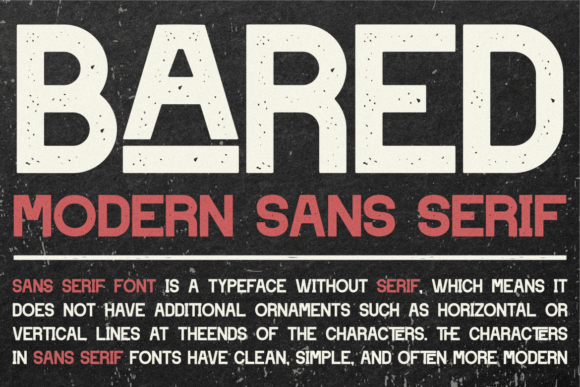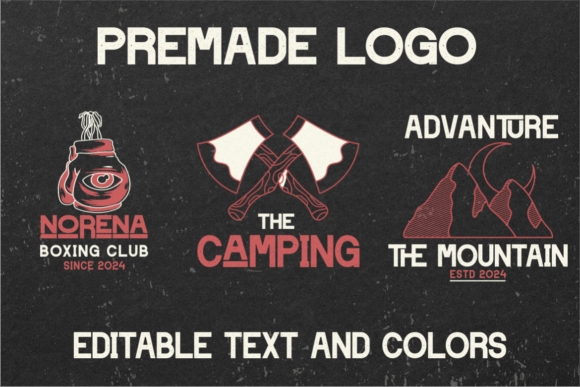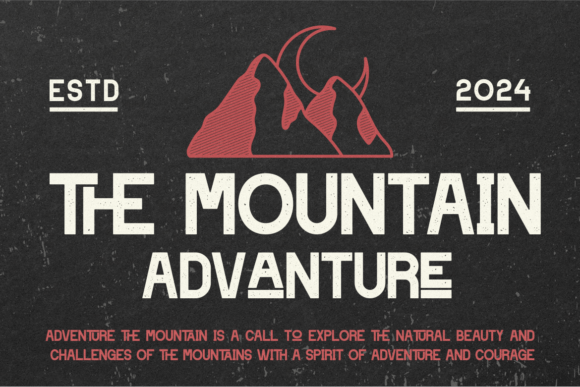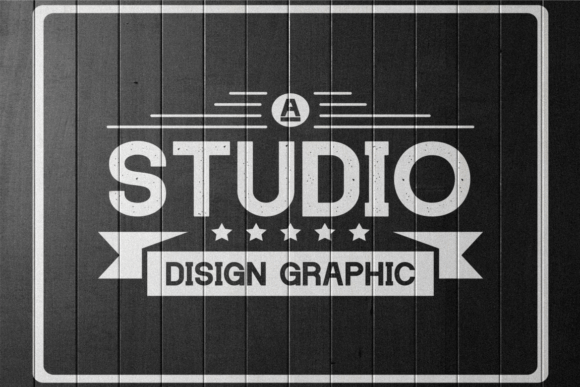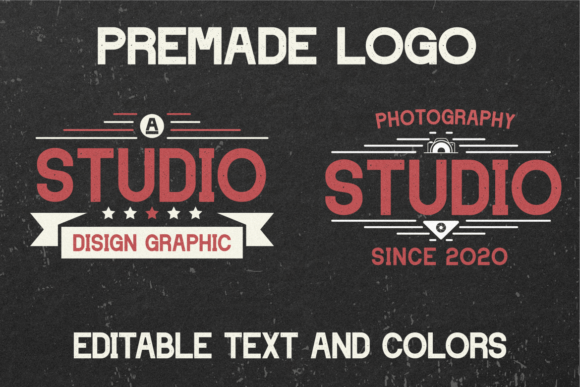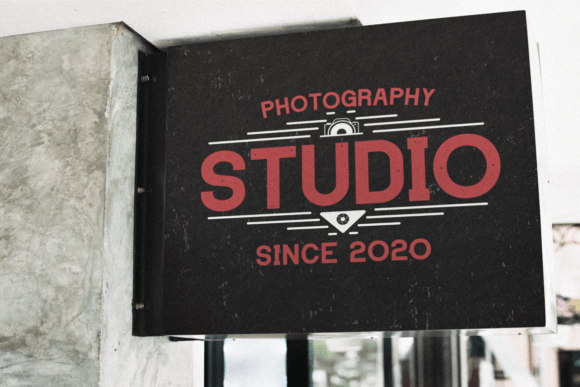
Unleash Your Creativity with Bared Font: A Modern Sans Serif Marvel
In the realm of typography, a font can make or break a design project. It’s the foundation upon which your brand’s identity is built, conveying your message with clarity and style. Today, we’re excited to introduce Bared, a modern sans serif font that’s poised to revolutionize your branding, logo designs, templates, and more. Bared is not just a font; it’s a statement of boldness and authenticity, crafted to make your projects stand out in any context.
The Essence of Bared Font
Bared is a bold and authentic display font designed with the modern designer in mind. Its sans serif structure lends it a clean and contemporary look, making it incredibly versatile for a wide range of applications. Whether you’re working on a logo, an esport design, a template, or any other branding project, Bared is up to the task. Its modern aesthetic ensures that your designs are not only current but also timeless, avoiding the pitfalls of trends that can quickly become outdated.
Key Features of Bared Font
- PUA Encoded for Easy Access: Bared font is PUA (Private Use Area) encoded, which means accessing its amazing glyphs and ligatures is straightforward. This feature allows designers to dive deep into creative possibilities without the hassle of complicated font management.
- Bold and Authentic: The font’s bold structure makes it perfect for display purposes, commanding attention and making a lasting impression on viewers.
- Versatility at Its Best: From logo designs to esport branding, and from templates to any other form of visual communication, Bared adapts seamlessly, ensuring your message is conveyed with clarity and style.
Applications of Bared Font
The versatility of Bared font is one of its most compelling attributes. Here are some of the areas where Bared truly shines:
- Logo Design: Create memorable and impactful logos that stand out in the crowd. Bared‘s bold and modern look makes it perfect for logos that need to convey strength and reliability.
- Esport Design: The esports industry demands designs that are not only modern but also convey a sense of dynamism and energy. Bared font fits the bill perfectly, adding a competitive edge to your designs.
- Template Design: Elevate your template designs with a font that’s both clean and attention-grabbing. Whether it’s for a website, a presentation, or a marketing material, Bared ensures your template stands out.
- Branding Projects: For any branding project, consistency and clarity are key. Bared helps in creating a uniform visual language that resonates with your brand’s message.
Why Choose Bared Font?
In a market flooded with fonts, why should Bared be your choice? The answer lies in its unique blend of boldness, authenticity, and versatility. Here are a few reasons why Bared stands out:
- Unique Aesthetic: Bared offers a fresh perspective on sans serif fonts, providing a unique aesthetic that’s both modern and engaging.
- Ease of Use: Being PUA encoded, it offers ease of use, allowing designers to focus on creativity rather than technicalities.
- Highly Versatile: Its adaptability across various design contexts makes it a valuable asset for any designer looking to expand their creative toolkit.
In conclusion, Bared font is a game-changer for designers and crafters looking for a modern, bold, and authentic display font. Its versatility, combined with its ease of use and unique aesthetic, makes it an invaluable resource for a wide range of design projects. Whether you’re a seasoned professional or just starting out, Bared offers the tools you need to elevate your designs and make a lasting impact. So why wait? Unleash your creativity with Bared and take your designs to the next level.